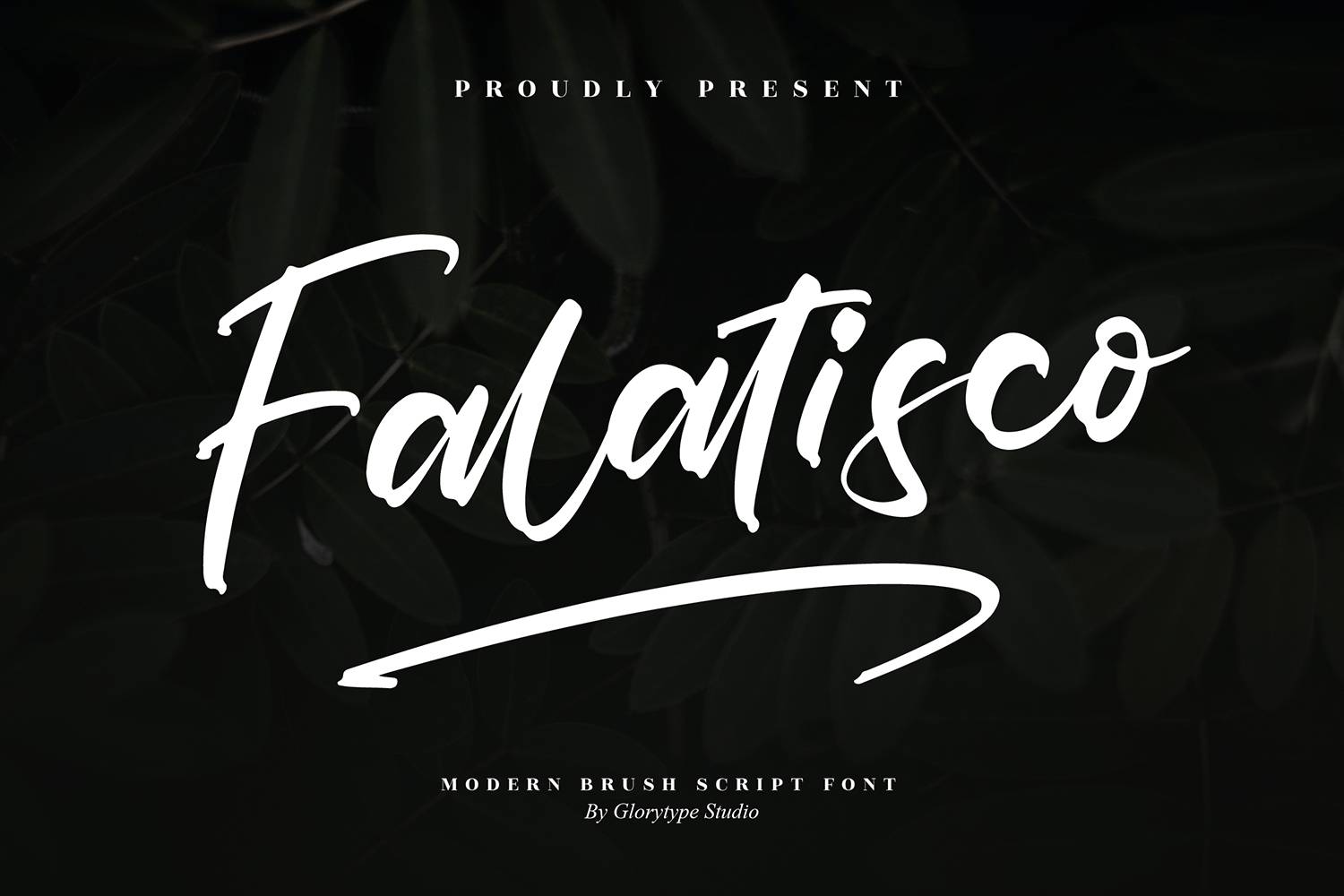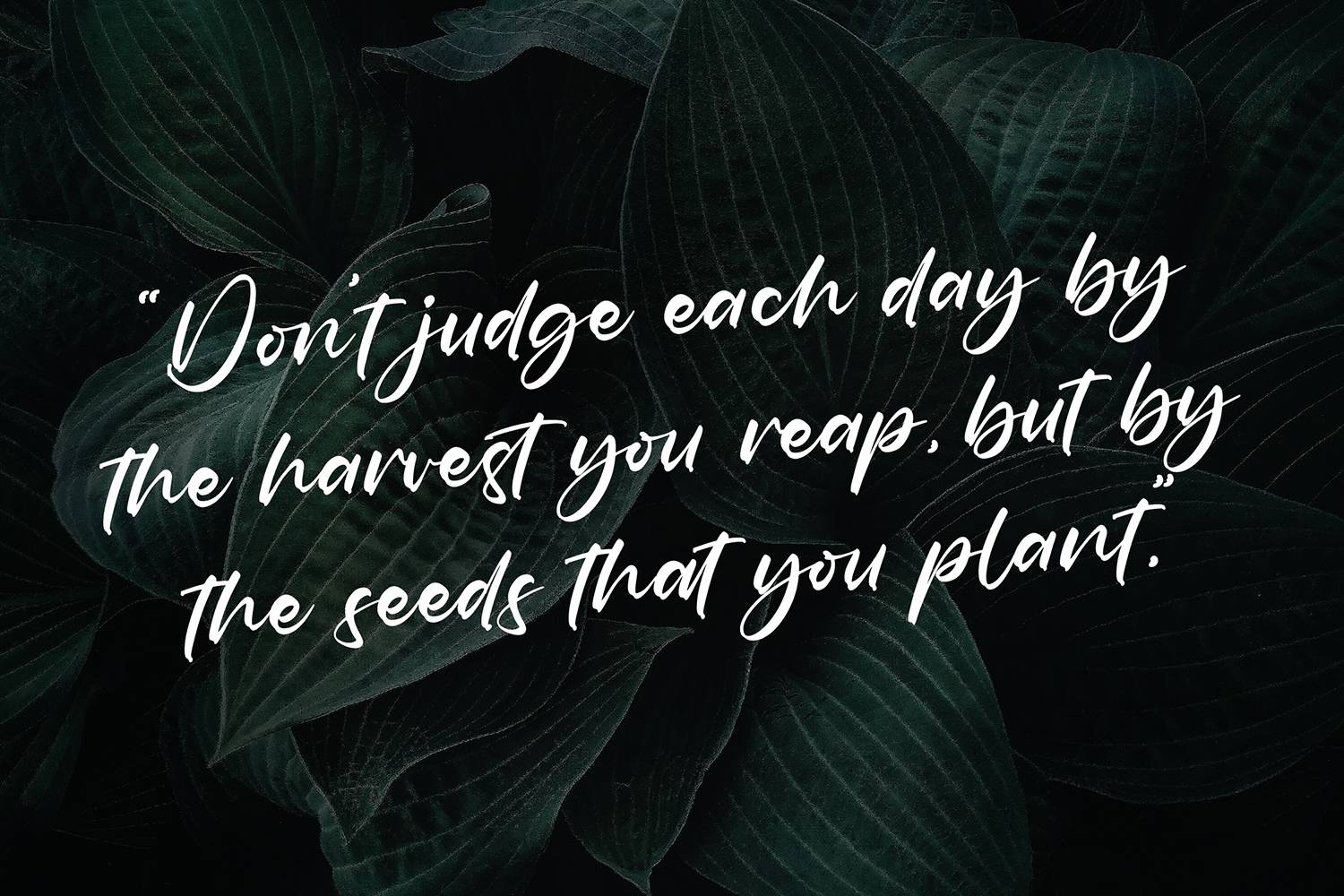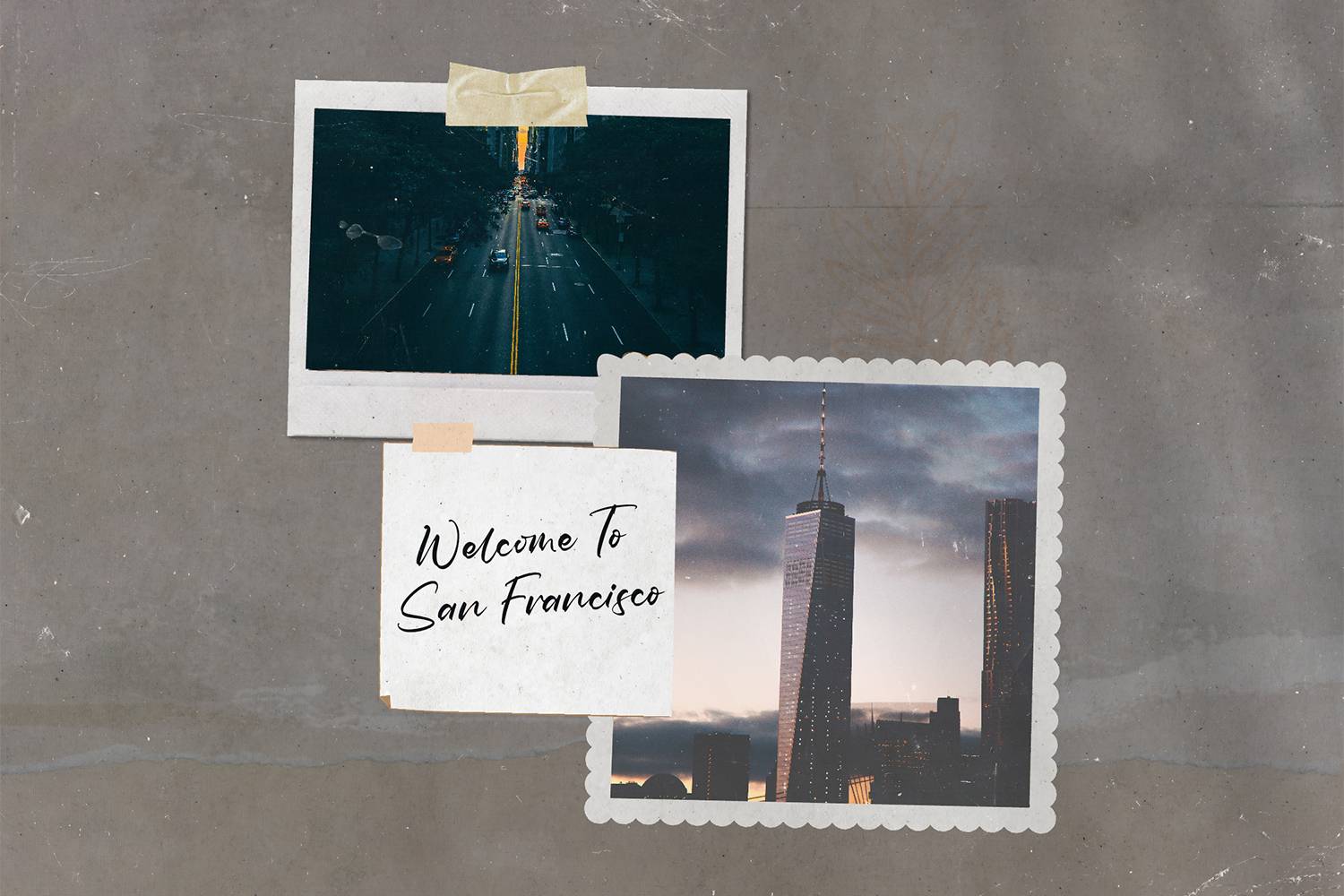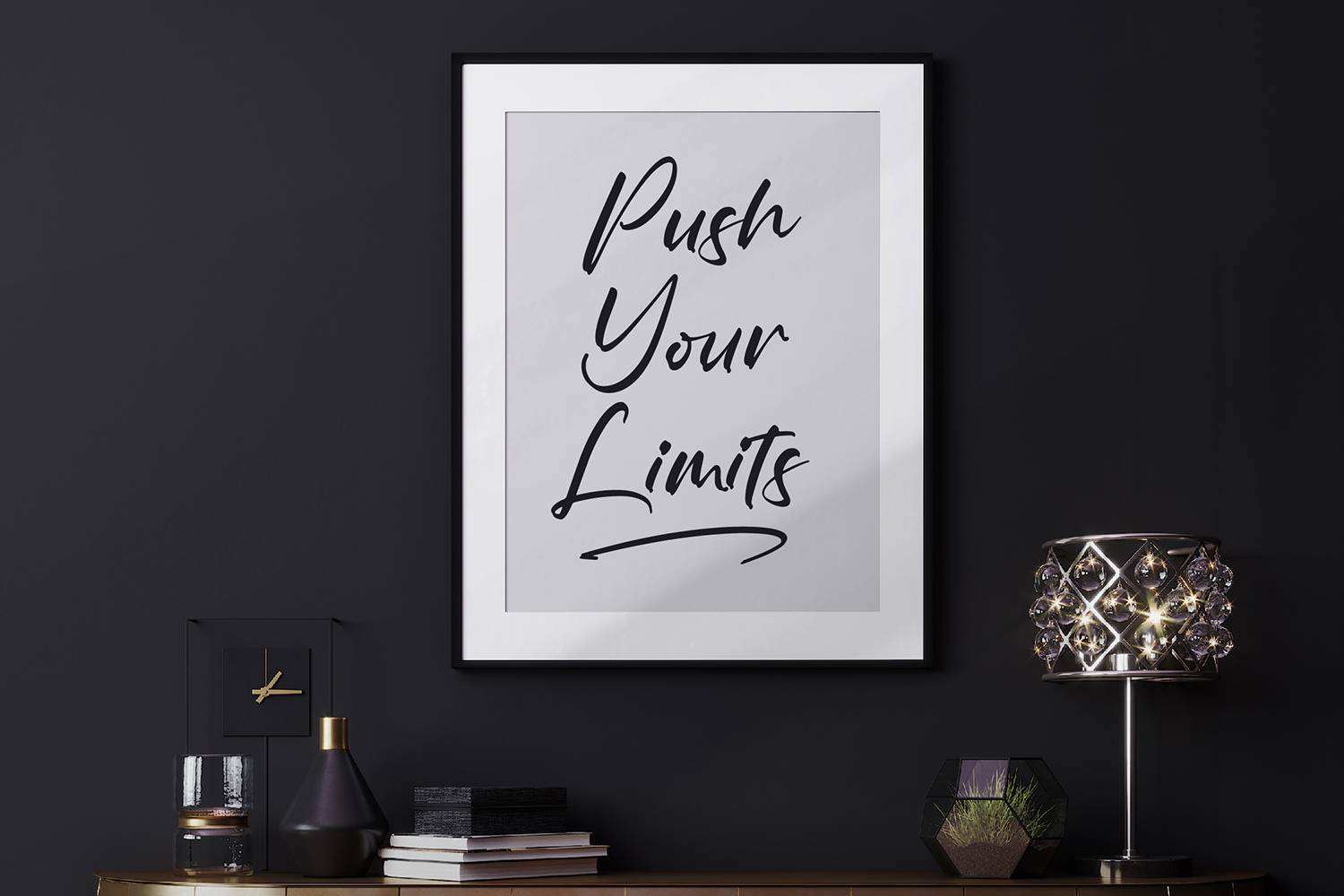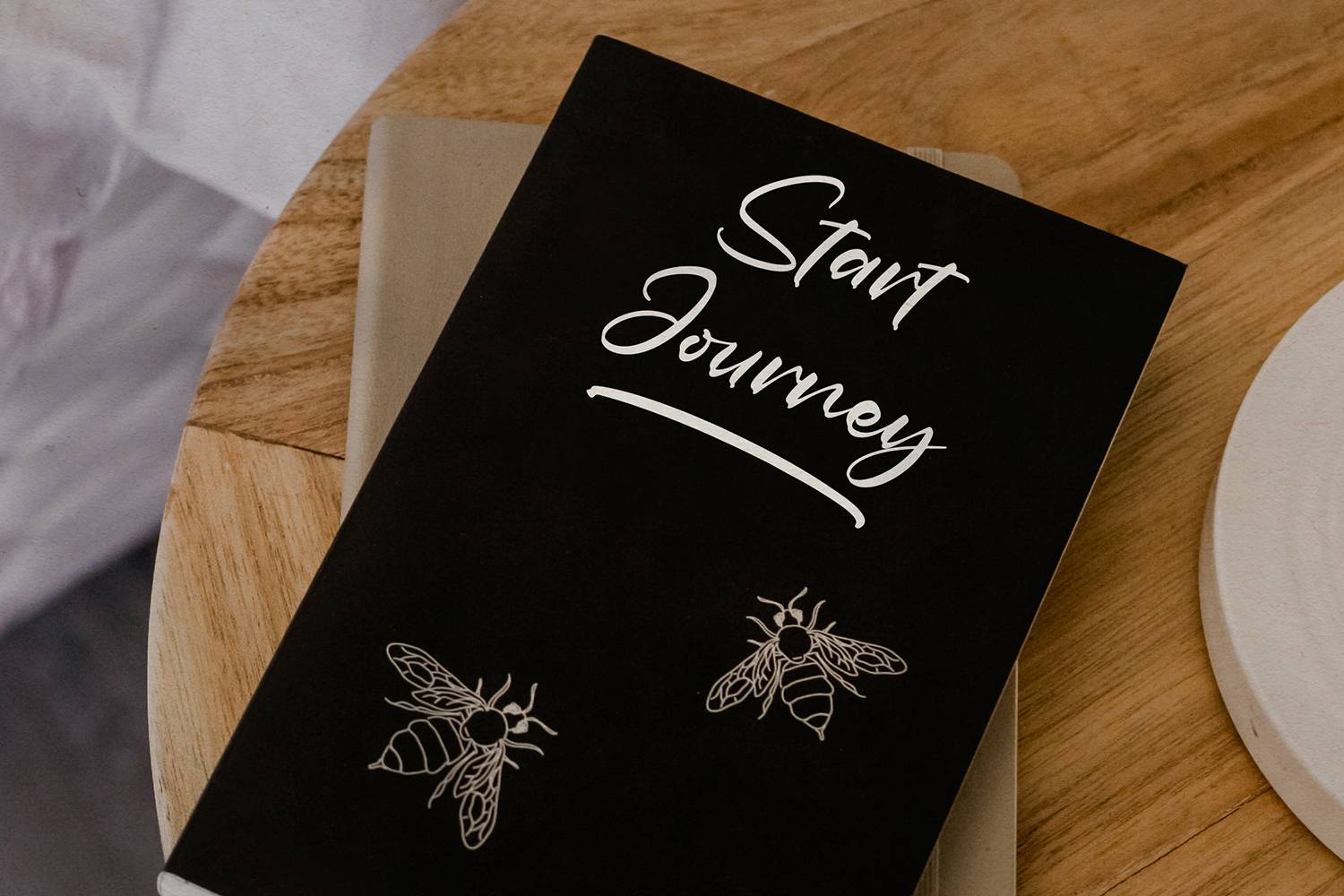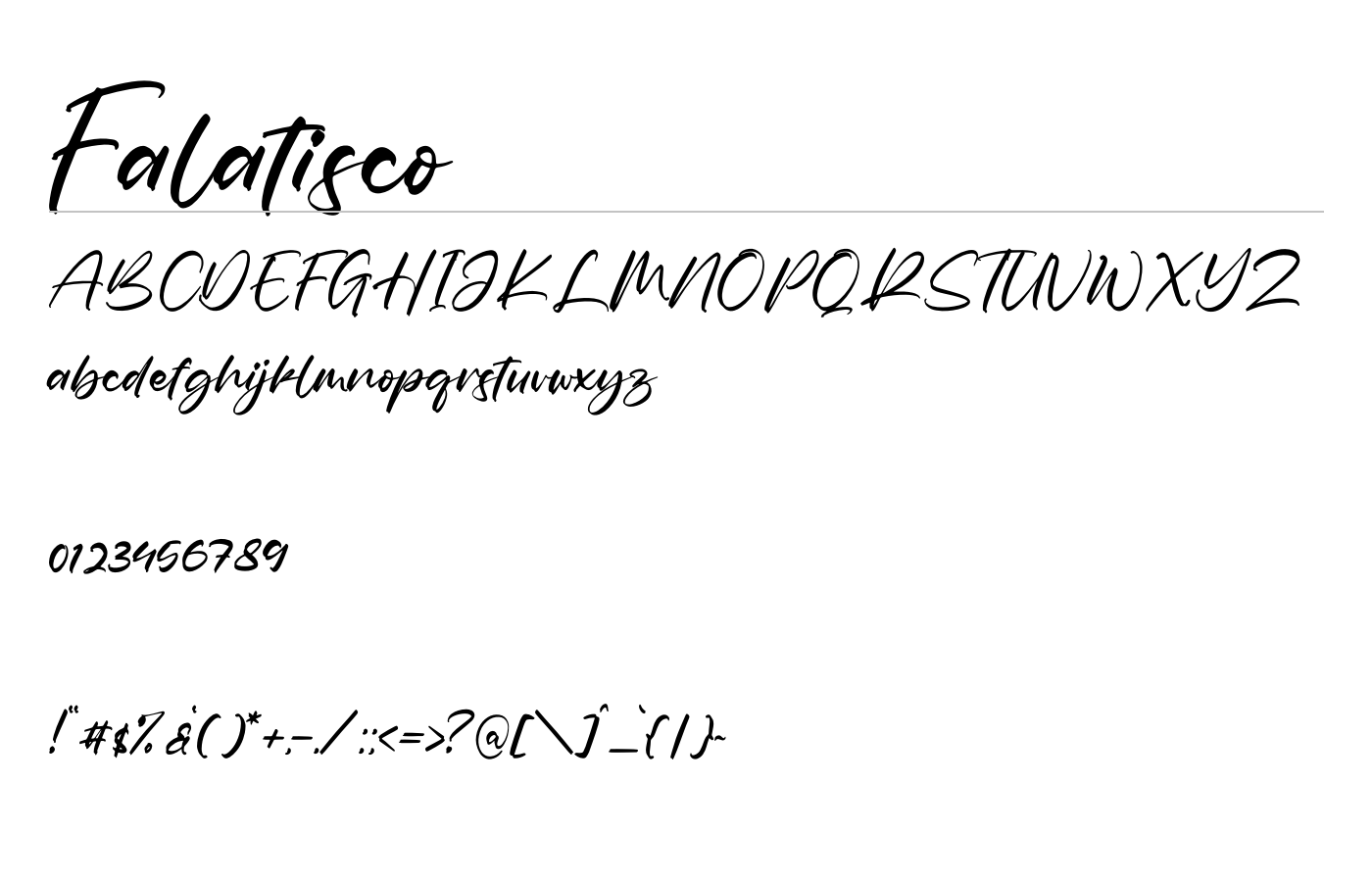
Falatisco is a stylish script font with an energetic, hand-drawn feel, featuring fluid strokes and natural variations that give it a lively and personal touch. Its moderately high contrast and slightly condensed letterforms make it perfect for adding a creative, modern flair to branding, invitations, and headline designs where a bold, expressive look is desired. This font works best in contexts that call for a dynamic yet elegant personality, such as fashion, lifestyle, or artistic projects.
Falatisco Font
About Falatisco Font